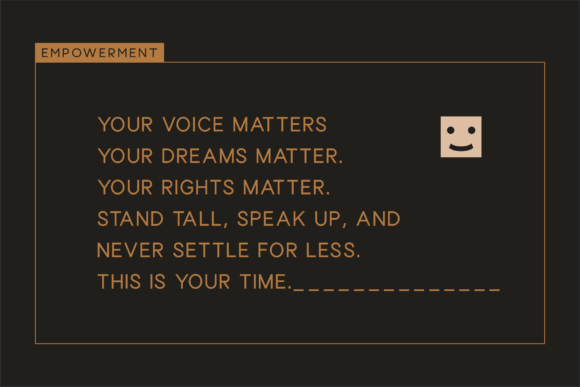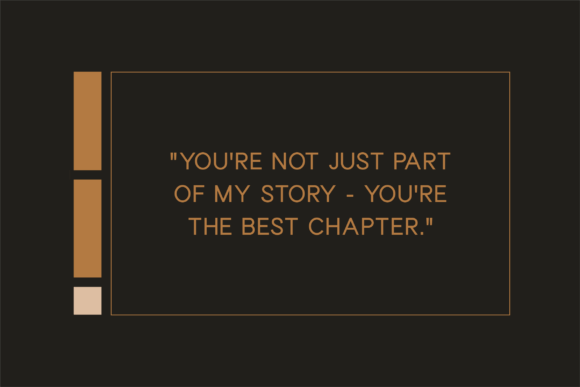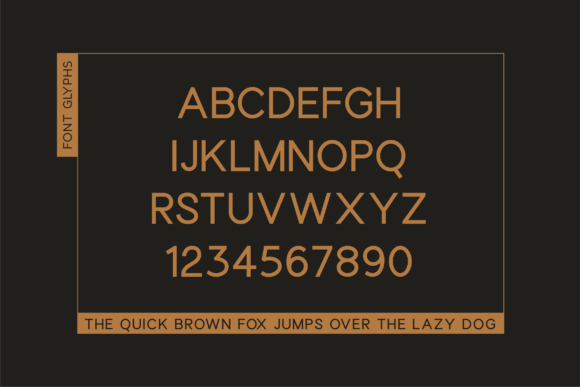
Introduction to Floatien Font
Introducing Floatien – A Modern Sans Serif Typeface Floatien is a bold, all-caps sans serif font designed for the modern designer.
With its clean lines and minimalist aesthetic, this typeface exudes strength and authority It is perfect for projects that require a sense of professionalism and impact.